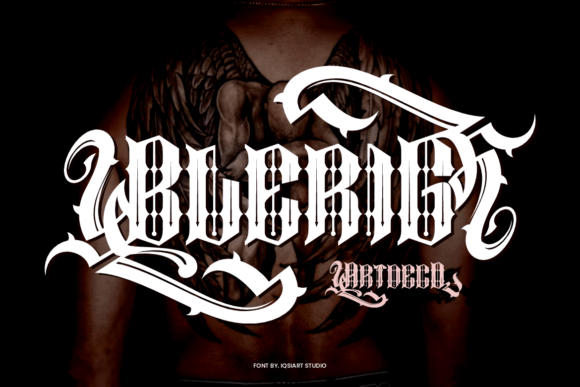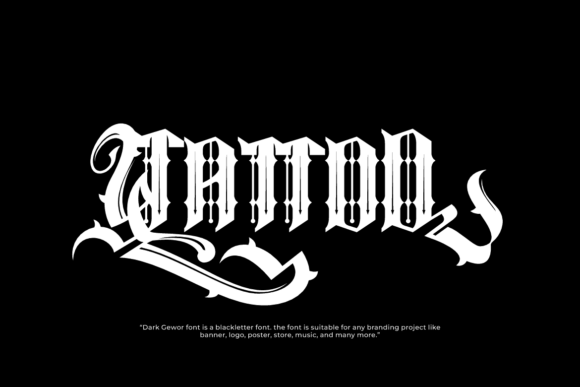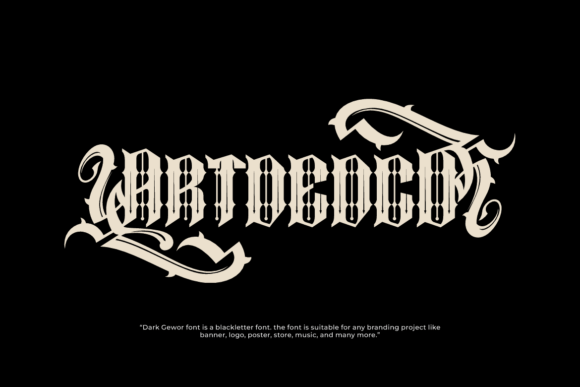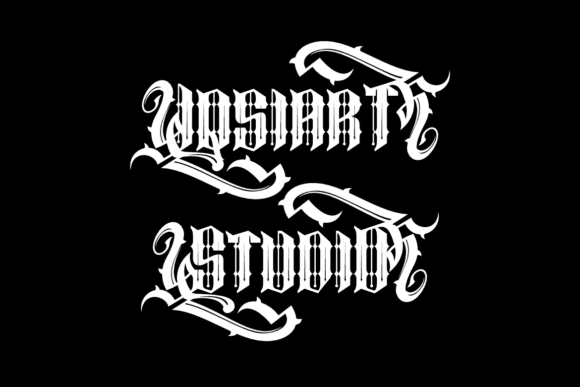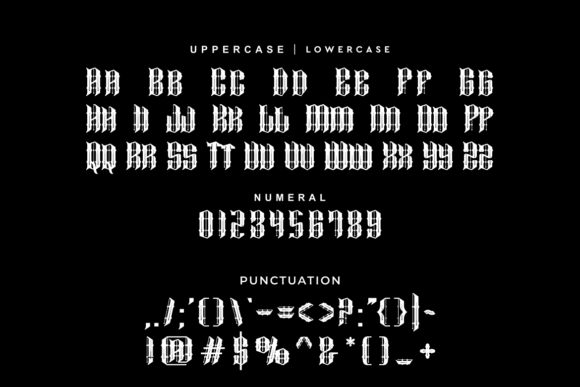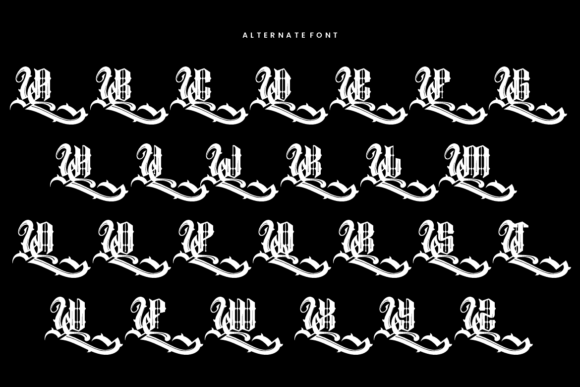
The Birth of a Bold New Font: Unveiling Blerig
Have you ever stared at a blank canvas, searching for the perfect spark to ignite your creativity? For many designers, it’s that moment when the right font comes along and transforms a concept into a masterpiece. And for those who crave something truly unique, the Blerig Font is about to become your new best friend. This highly stylized art-deco-inspired blackletter font is a masterful blend of traditional Gothic structure and ornamental flair.
With its elongated vertical forms, spiked serifs, and razor-sharp angles, the Blerig Font demands attention. Its flourished swashes and ink-trap detailing give it a raw, tattoo-like presence that echoes themes of rebellion, heritage, and strength. Whether you’re designing statement-making logos, tattoo art, or vintage signage, the Blerig Font is the perfect choice for those who want to evoke a bold emotional response.
As a valuable addition to any designer’s toolkit, the Blerig Font offers complex ligatures and an angular rhythm that create an unforgettable aesthetic. With PUA encoding included, all special characters and decorative elements are easily accessible, making it a must-have for any project that requires dark elegance and bold storytelling.
- Character Set: The font includes a comprehensive set of characters, including Latin, Cyrillic, and Greek alphabets, as well as various punctuation marks and symbols.
- Unique Characteristics: The font’s distinctive design features a unique blend of modern and vintage elements, making it suitable for a wide range of applications, from fashion and lifestyle to technology and innovation.
Blerig Font Review
Overall, I found the Blerig font to be a unique and stylish addition to any design project. ✨ Its distinctive flair and elegance make it perfect for creating eye-catching headings and titles.
The font’s versatility is one of its strongest points. It can be used for a variety of purposes, from modern websites to elegant print materials. ✨ The font’s bold and italic variants add an extra layer of depth and complexity to the design.
- Unique and stylish flair
- Perfect for creating eye-catching headings and titles
- Highly versatile
- Bold and italic variants add depth and complexity
- May be too bold for smaller text sizes
- Not suitable for body text due to its complexity
- May require additional styling to make it readable at certain sizes
- May not be compatible with older font rendering systems
Overall, the Blerig font is a solid choice for designers looking to add a touch of elegance and sophistication to their projects. While it may have some limitations, its unique style and versatility make it a great addition to any design arsenal.
For optimal results, use the Blerig Font in conjunction with bold lines, geometric shapes, and minimalist backgrounds.
For a professional look, pair the Blerig Font with clear headings and concise bullet points.
The Blerig Font is ideal for:
- Modern and minimalist designs.
- Graphic novels and comics.
- Infographics and data visualizations.